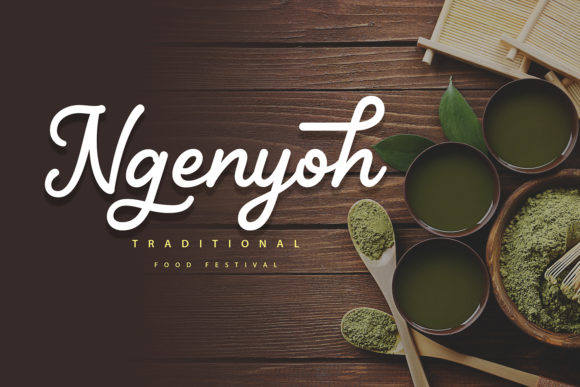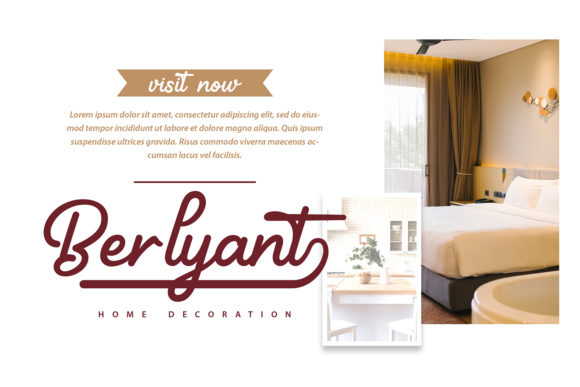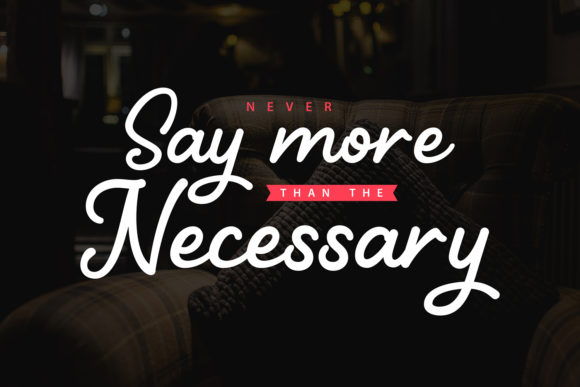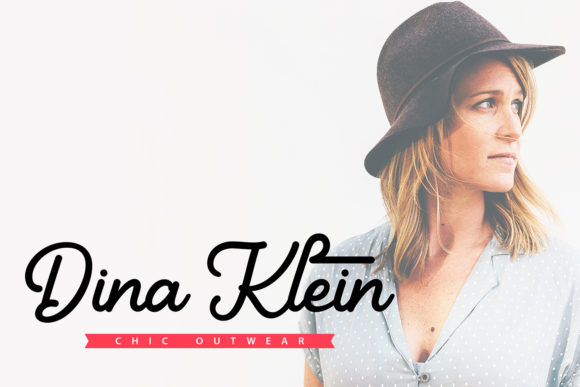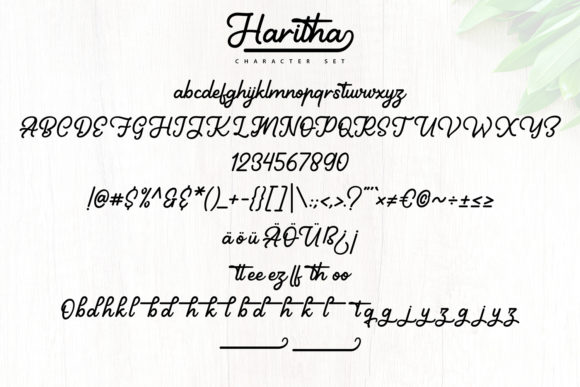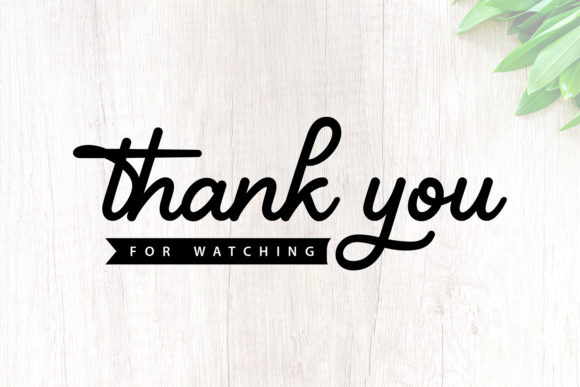
Introducing Haritha Font: A Vintage Styled Handwritten Font for Your Creative Projects
Are you a designer or crafter looking for a unique and stylish font to elevate your headlines and logotype projects? Look no further than Haritha Font, a vintage styled handwritten font that adds a touch of nostalgia and sophistication to your designs. In this article, we’ll dive into the features and benefits of Haritha Font, and explore how it can help you create stunning visual content.
A Strong, Confident, and Dynamic Font
Haritha Font is crafted to give your designs a strong, confident, and dynamic feel. Its vintage styled handwritten aesthetic is perfect for adding a touch of elegance and refinement to your projects. Whether you’re working on a logo, headline, or any other design element, Haritha Font is sure to make a statement.
One of the key features of Haritha Font is its ability to add tons of nostalgic character to your designs. The font’s classic, handwritten style is reminiscent of a bygone era, and is sure to evoke a sense of nostalgia and timelessness in your audience. Whether you’re creating a retro-inspired design or simply looking to add some character to your project, Haritha Font is an excellent choice.
Haritha Font is PUA (Private Use Area) encoded, which means that you can access all of the glyphs and swashes with ease. This feature makes it easy to customize your designs and add unique touches to your projects. With Haritha Font, you can easily access a wide range of glyphs and swashes, allowing you to create complex and visually interesting designs.
Haritha Font is perfect for designers and crafters who are looking for a high-quality, unique font to add to their collection. Whether you’re working on a client project or creating something for your own portfolio, Haritha Font is sure to impress. The font’s versatility and customization options make it an excellent choice for a wide range of design applications, from logos and headlines to packaging and branding.
- Vintage styled handwritten font: Haritha Font features a classic, handwritten aesthetic that’s perfect for adding a touch of nostalgia and sophistication to your designs.
- Strong, confident, and dynamic: The font’s bold, confident style is sure to make a statement in your designs.
- PUA encoded: Haritha Font is PUA encoded, making it easy to access all of the glyphs and swashes.
- Perfect for designers and crafters: Haritha Font is an excellent choice for designers and crafters who are looking for a high-quality, unique font to add to their collection.
- Versatile and customizable: The font’s versatility and customization options make it an excellent choice for a wide range of design applications.
Tips for Using Haritha Font
Here are a few tips for using Haritha Font in your designs:
- Use it for headlines and logotypes: Haritha Font is perfect for headlines and logotypes, where its bold, confident style can really make an impact.
- Experiment with different colors and textures: Haritha Font looks great in a variety of colors and textures, so don’t be afraid to experiment and find the look that works best for your design.
- Pair it with other fonts: Haritha Font pairs well with a variety of other fonts, so feel free to get creative and find the perfect combination for your design.
In conclusion, Haritha Font is a unique and stylish font that’s perfect for designers and crafters who are looking to add a touch of nostalgia and sophistication to their designs. With its vintage styled handwritten aesthetic, strong and confident style, and PUA encoding, Haritha Font is an excellent choice for a wide range of design applications. Whether you’re working on a logo, headline, or any other design element, Haritha Font is sure to make a statement.